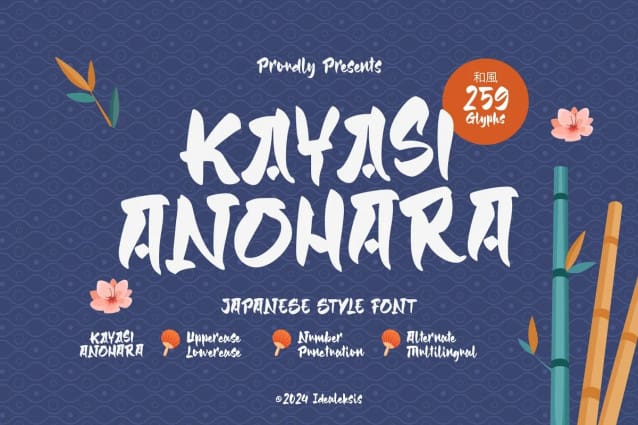
Kayasi Anohara Font
Kayasi Anohara Font is a captivating Japanese-themed font that seamlessly combines traditional aesthetics with a modern twist. This font exudes a harmonious blend of elegance and simplicity, drawing inspiration from the rich cultural heritage of Japan. The characters of Kayasi Anohara are meticulously crafted, reflecting the graceful brush strokes of traditional calligraphy while incorporating a contemporary design sensibility.